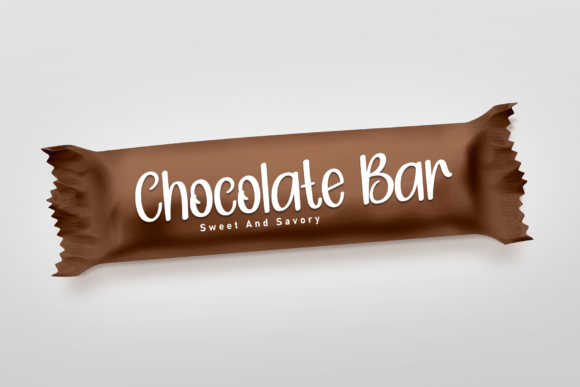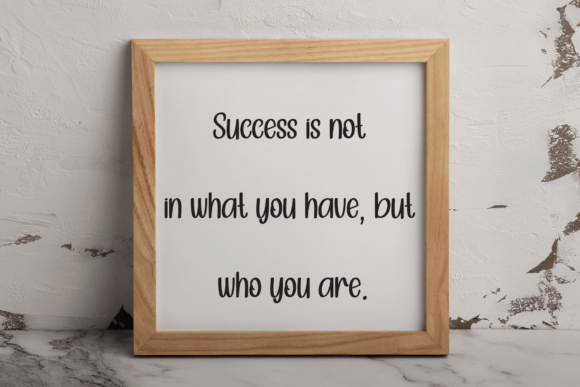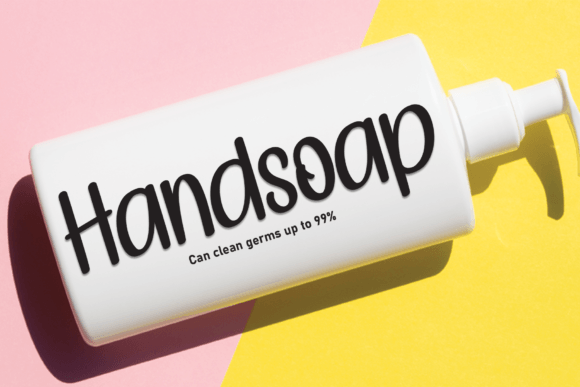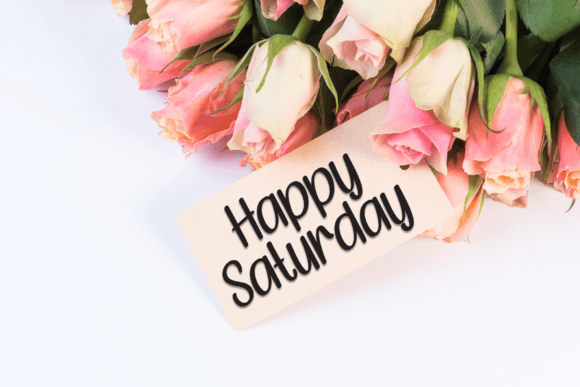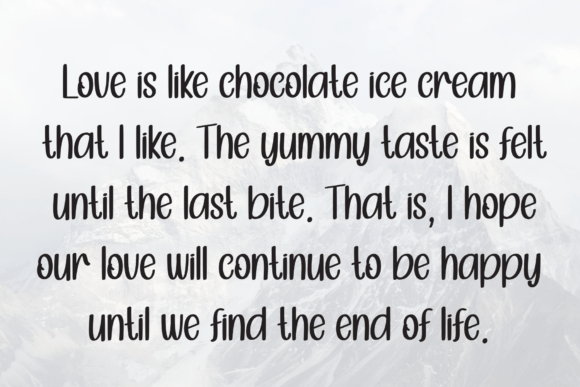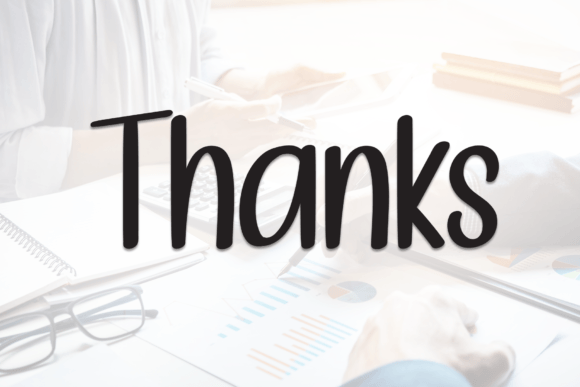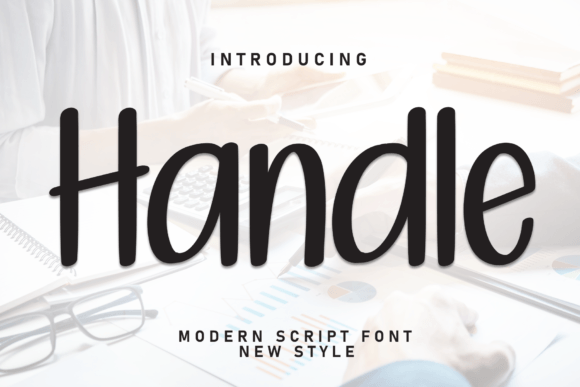
Introducing Handle Font: The Sweet and Friendly Handwritten Font for Your Design Needs
Are you looking for a font that can add a touch of warmth and personality to your designs? Look no further than Handle Font! This sweet and friendly handwritten font is perfect for creating wedding invitations, cards, and other designs that require a fun and playful touch. In this article, we’ll dive into the features and benefits of Handle Font, and explore how you can use it to take your designs to the next level.
What is Handle Font?
Handle Font is a beautiful handwritten font that is designed to bring a sense of joy and friendliness to your designs. With its cute and fun style, this font is ideal for creating designs that require a personal touch. Whether you’re designing wedding invitations, birthday cards, or social media graphics, Handle Font is the perfect choice.
Key Features of Handle Font
- Handwritten style: Handle Font has a unique handwritten style that gives it a personal and friendly feel.
- Cute and fun: This font is designed to be playful and fun, making it perfect for designs that require a lighthearted touch.
- Versatile: Handle Font can be used for a wide range of design projects, from wedding invitations to social media graphics.
- Easy to read: Despite its playful style, Handle Font is easy to read and understand, making it perfect for designs that require a clear message.
Benefits of Using Handle Font
So why should you choose Handle Font for your design needs? Here are just a few benefits of using this amazing font:
- Adds a personal touch: Handle Font’s handwritten style gives your designs a personal touch that sets them apart from more formal fonts.
- Creates a emotional connection: The friendly and approachable style of Handle Font helps to create an emotional connection with your audience.
- Perfect for creative projects: If you’re working on a creative project that requires a fun and playful touch, Handle Font is the perfect choice.
Using Handle Font in Your Designs
So how can you use Handle Font in your designs? Here are a few ideas to get you started:
- Wedding invitations: Handle Font is perfect for creating beautiful and unique wedding invitations that set the tone for the big day.
- Birthday cards: Add a personal touch to your birthday cards with Handle Font’s cute and fun style.
- Social media graphics: Use Handle Font to create fun and engaging social media graphics that help to build your brand.
- Party invitations: Handle Font is perfect for creating party invitations that are fun and playful.
Tips for Getting the Most Out of Handle Font
Here are a few tips for getting the most out of Handle Font:
- Use it with contrasting colors: Handle Font looks best when paired with contrasting colors that help it to stand out.
- Experiment with different sizes: Handle Font can be used at a variety of sizes, from large headings to smaller body text.
- Pair it with other fonts: Handle Font can be paired with other fonts to create a unique and interesting design.
In conclusion, Handle Font is a sweet and friendly handwritten font that is perfect for adding a touch of warmth and personality to your designs. With its cute and fun style, this font is ideal for creating wedding invitations, cards, and other designs that require a fun and playful touch. Whether you’re a designer or a crafter, Handle Font is a great choice for any project that requires a personal touch.